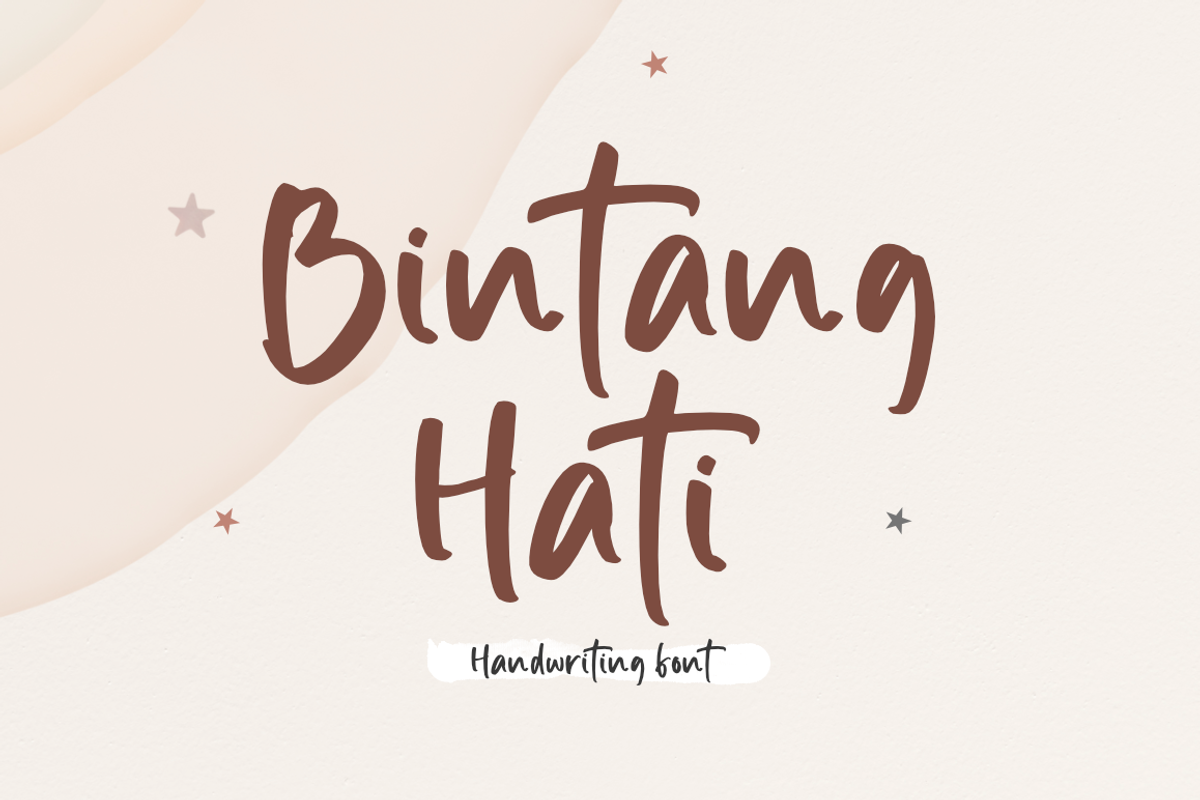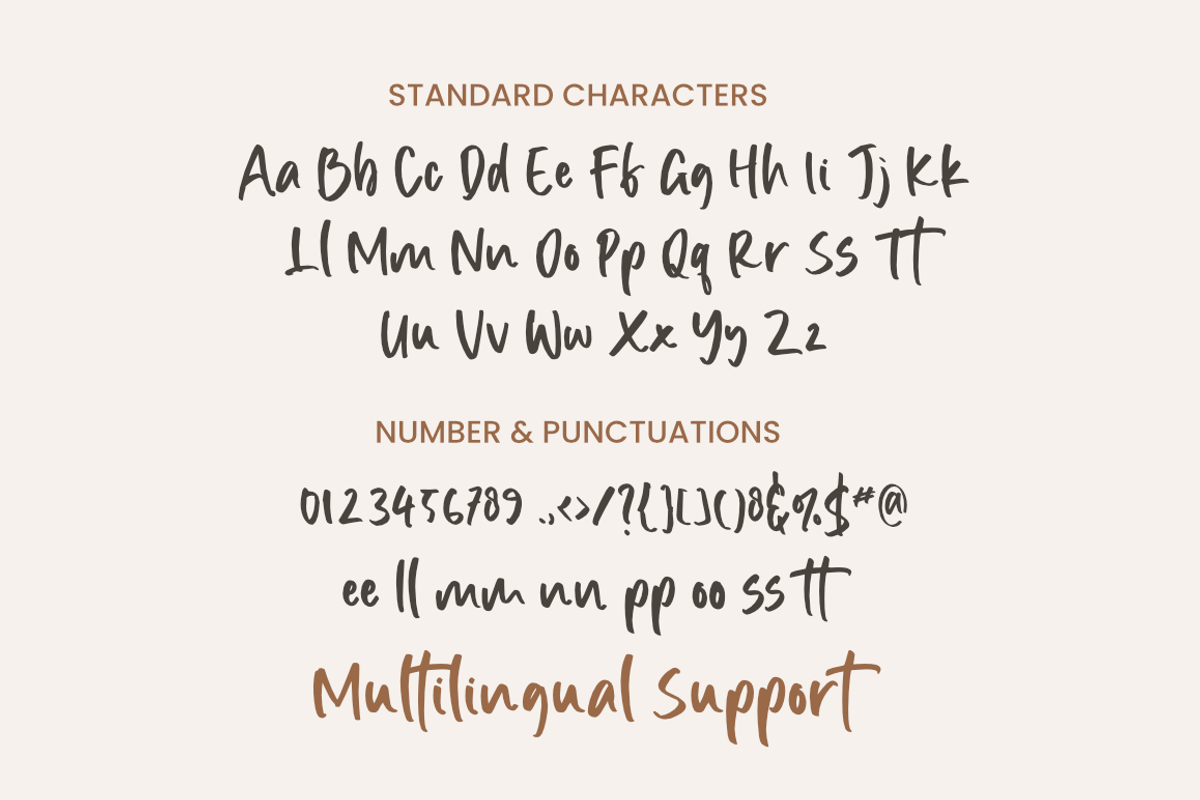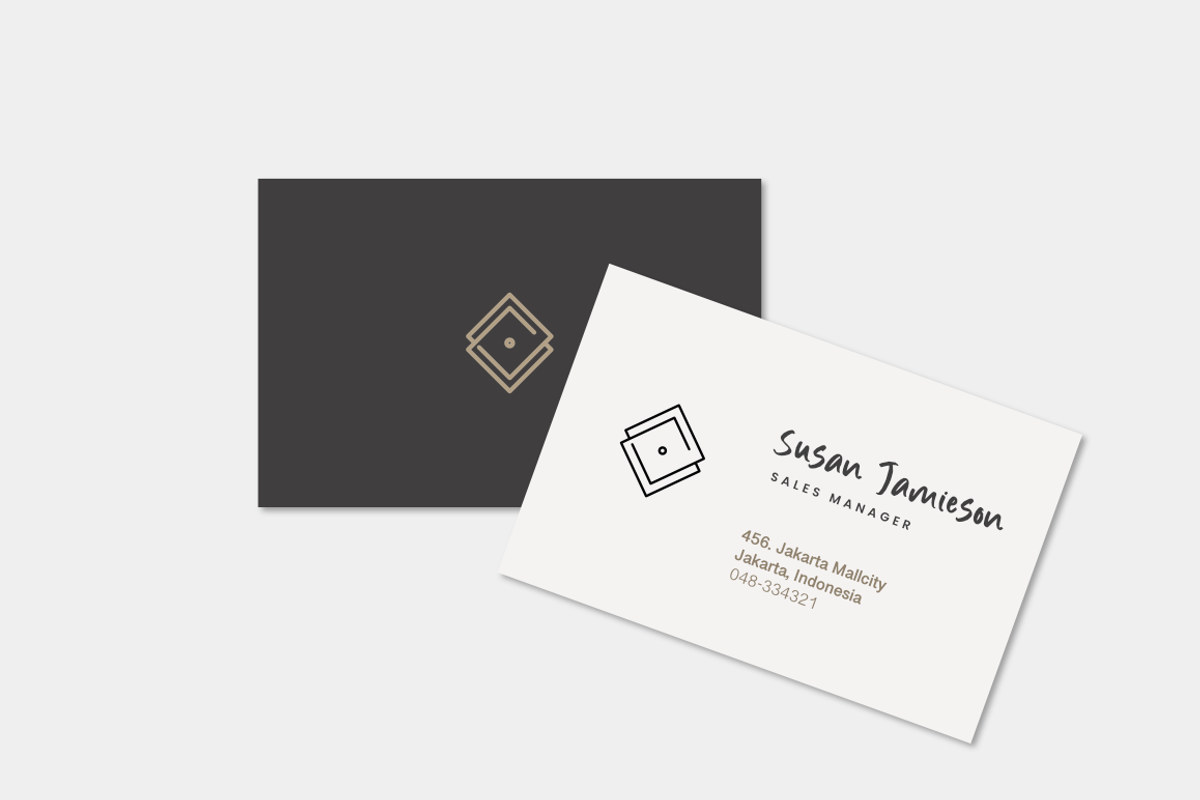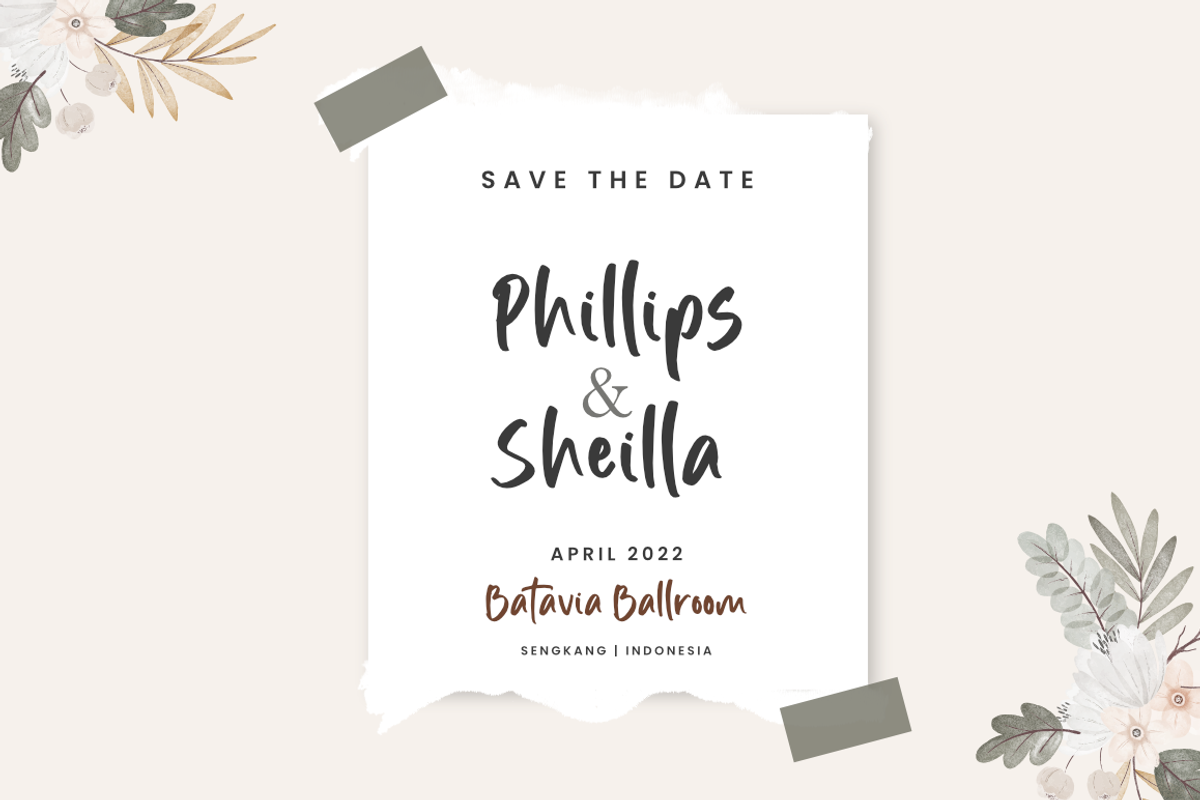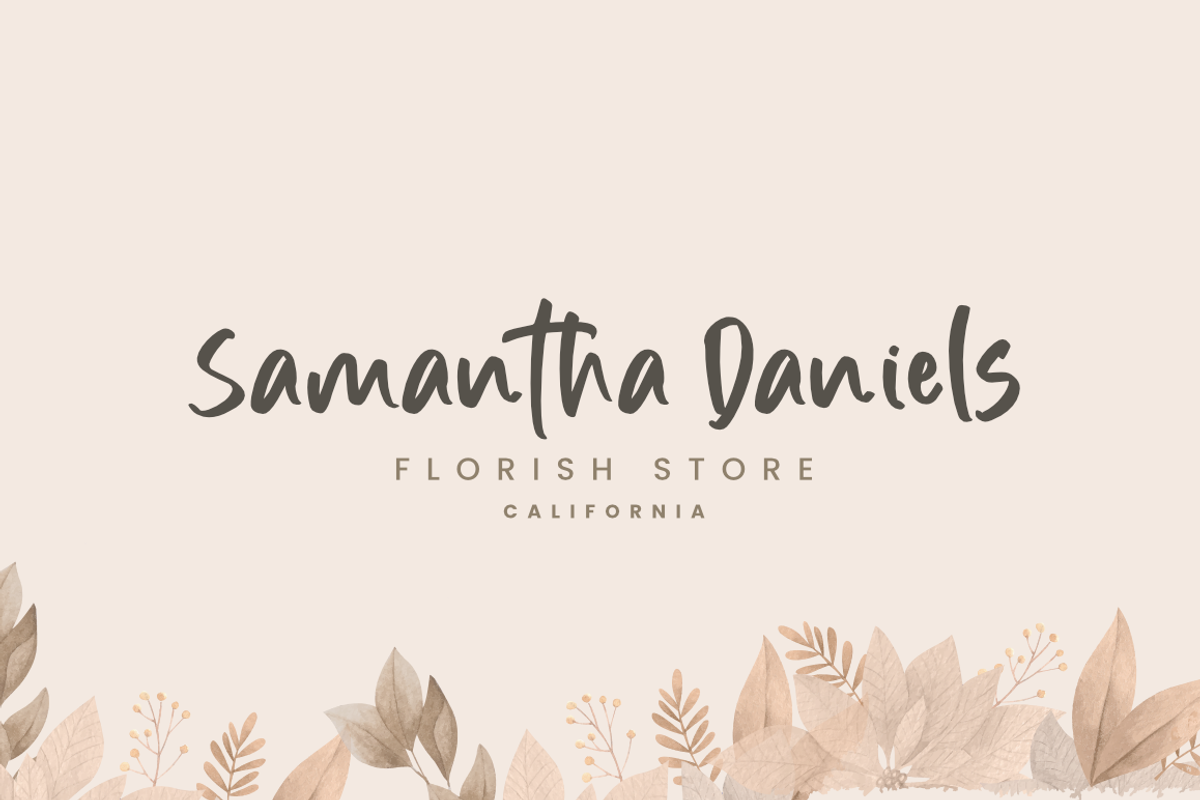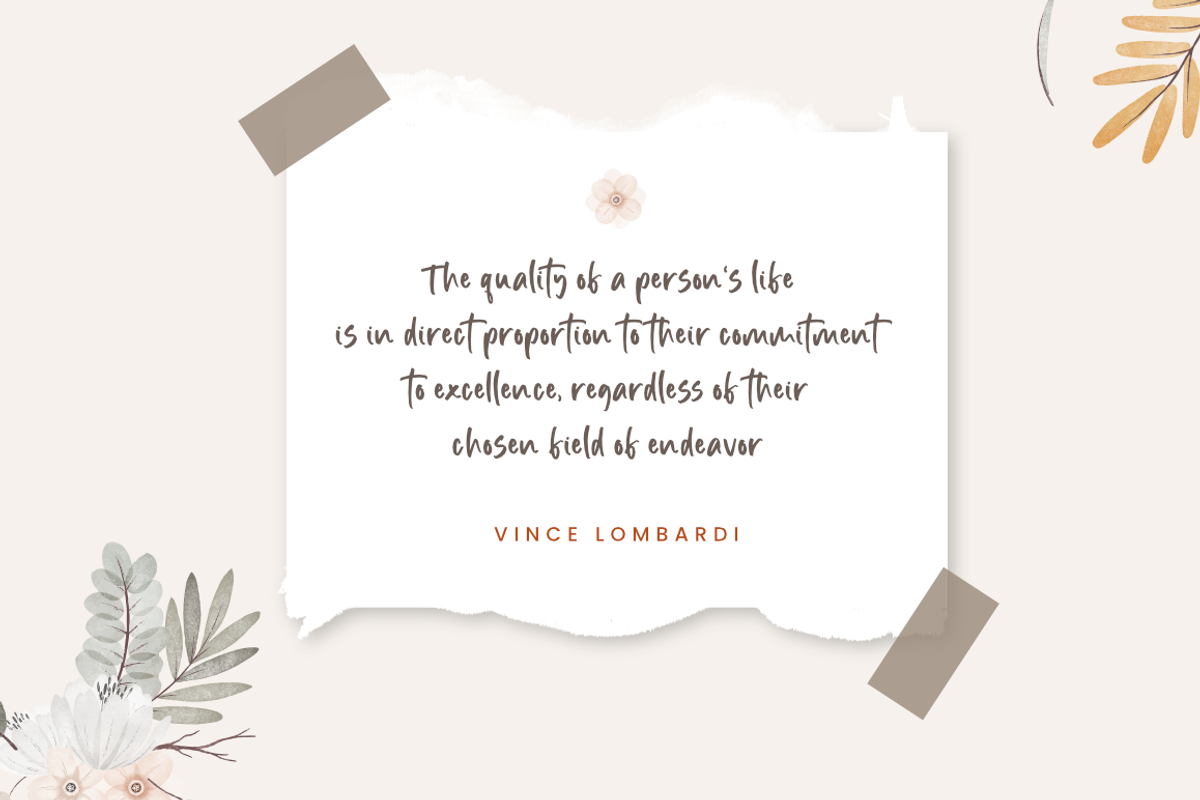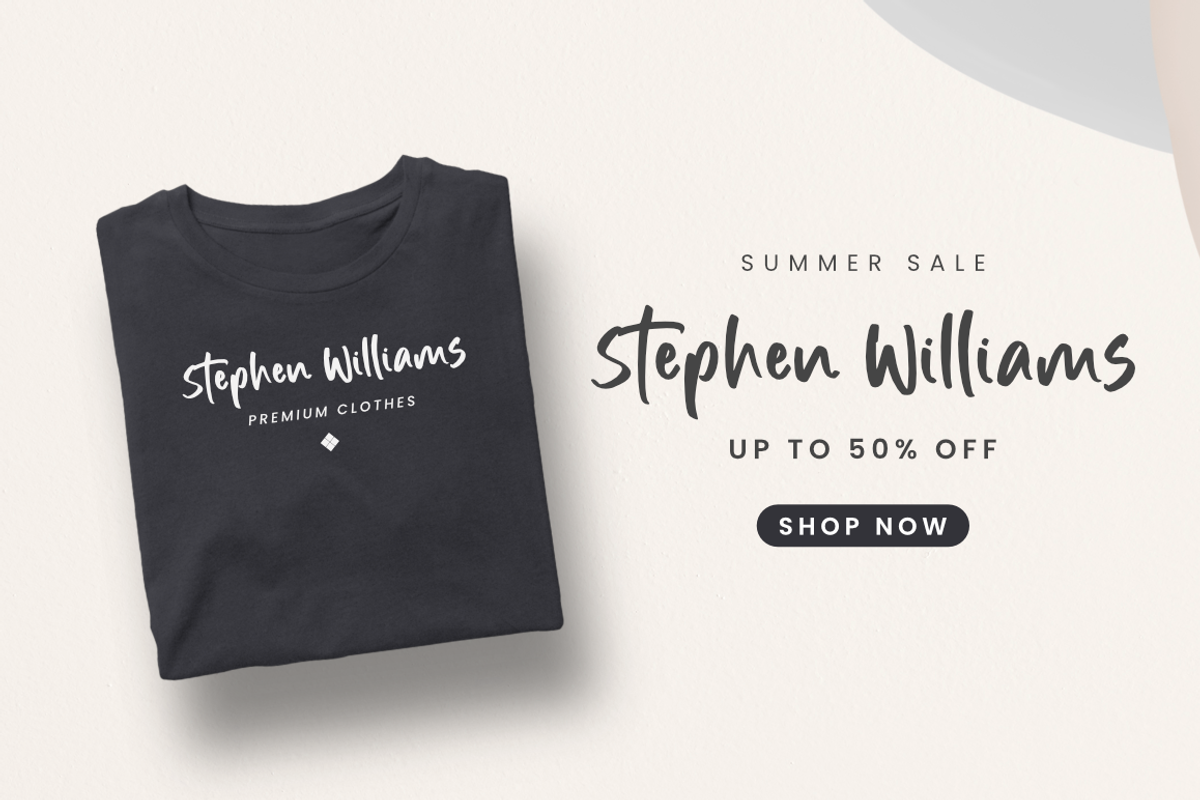
Bintang Hati - Handwriting Font
Introducing the Bintang Hati font, a high-quality handwriting font that stands out from the crowd. This font is meticulously designed with unique and attractive characters that are guaranteed to elevate your designs to a whole new level of professionalism and beauty.
One of the key advantages of the Bintang Hati font is its versatility. It is perfect for a wide range of design applications such as branding, logos, magazines, quotes, wedding invitations, products, crafts, and much more. You can use it to create everything from social media graphics to packaging designs.
Another advantage of the Bintang Hati font is its authentic handwritten style. The characters are carefully crafted to mimic the look and feel of real handwriting, which adds a personal and human touch to your designs. This makes it an ideal choice for businesses or individuals who want to create a unique and memorable brand identity.